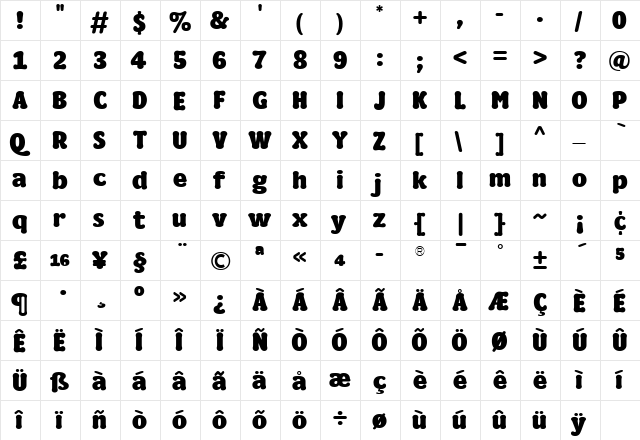
TFSimper Extrabold
| Foundry | J. Treacy,Treacyfaces,Inc |
Design Context for TFSimper Typeface
TFSimper offers clean, dependable letterforms without strong stylistic allegiance, making it a practical choice for designers who need flexibility. Its bold stroke weight gives it real presence on the page.